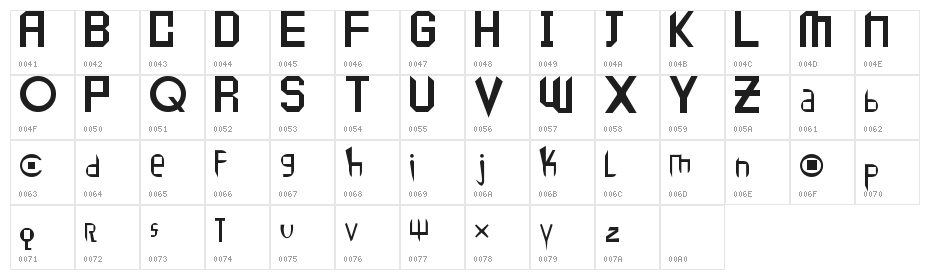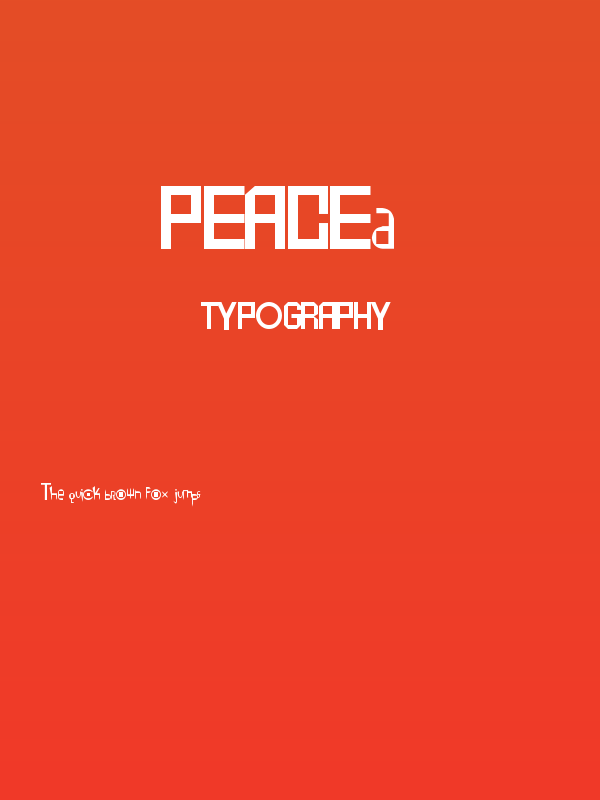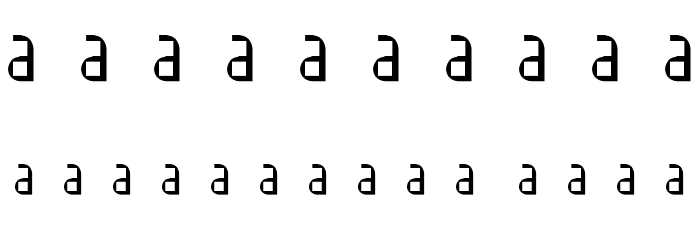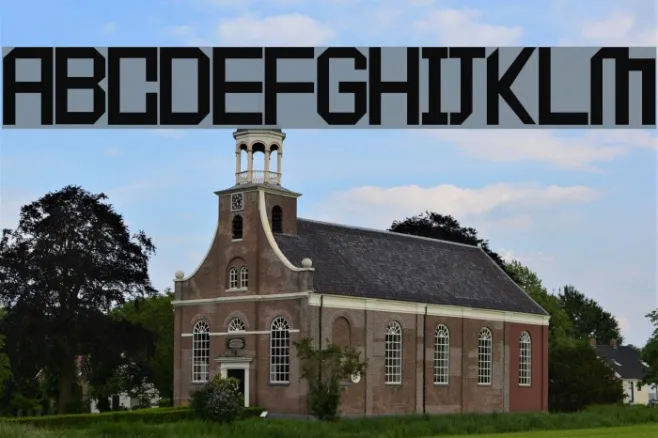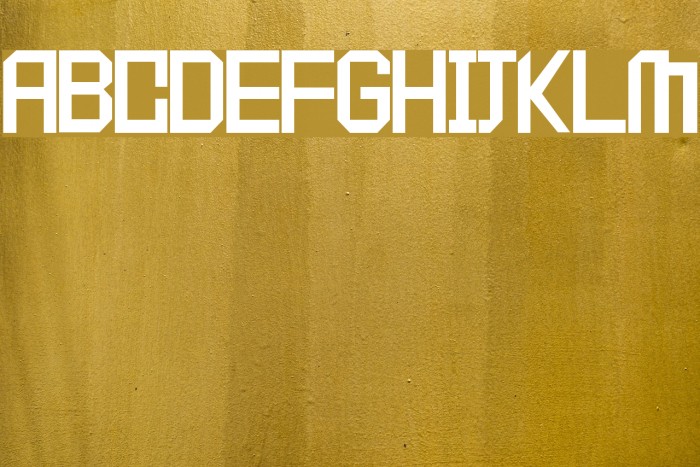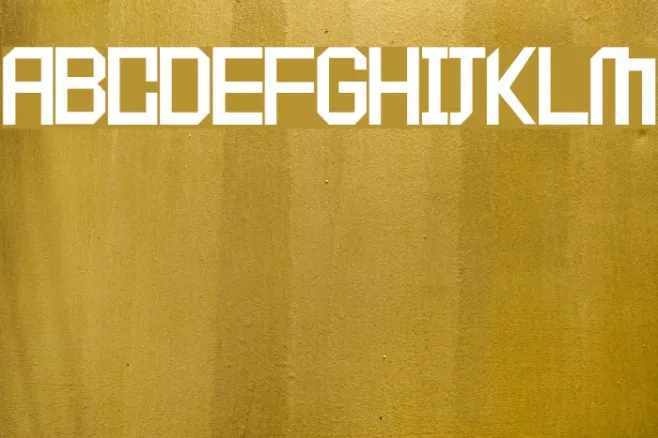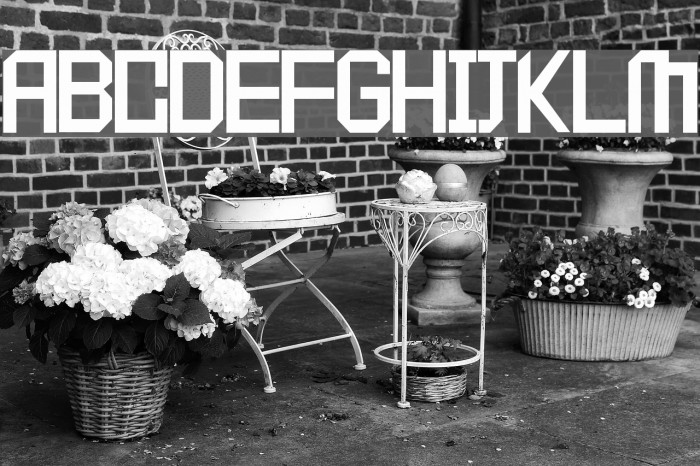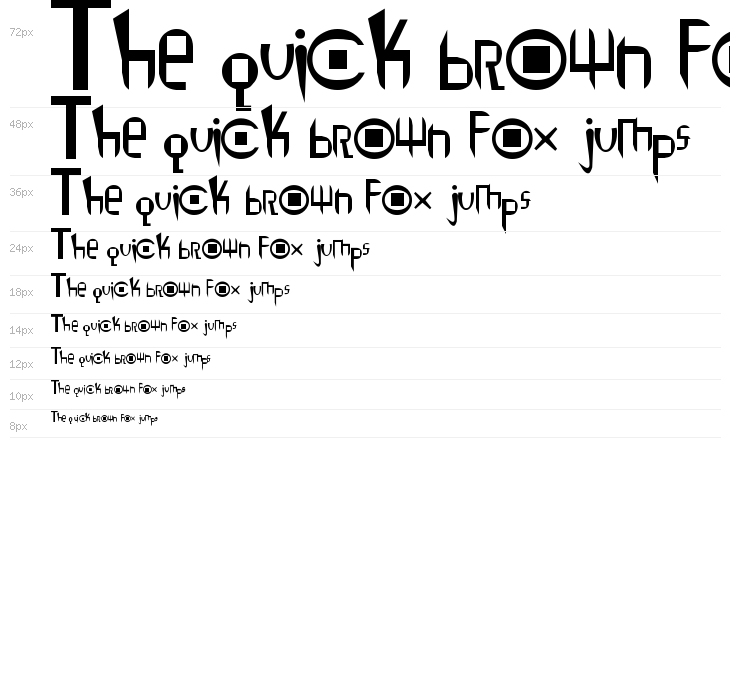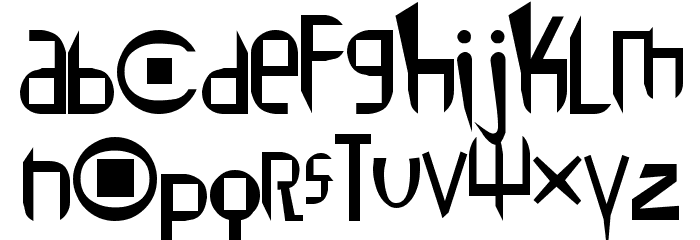
Peace1 Font
Peace1 Description
This font exhibits a bold, geometric style with sharp angles and a futuristic aesthetic. The uppercase letters are characterized by their blocky, angular forms, while the lowercase letters maintain a consistent geometric theme with unique, stylized shapes. The font's design is highly distinctive, making it suitable for attention-grabbing headlines or logos. The characters are evenly spaced, providing a balanced and cohesive appearance. The overall style is modern and decorative, with a high contrast in stroke thickness that enhances its visual impact.
| Overall Style | Modern, Futuristic, Decorative |
| Proposed Projects | Ideal for sci-fi themed projects, modern branding, posters, and digital media. |